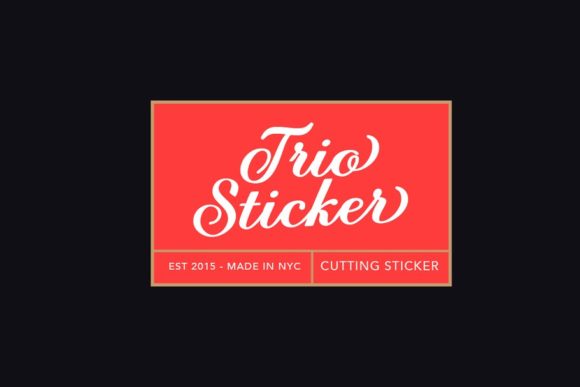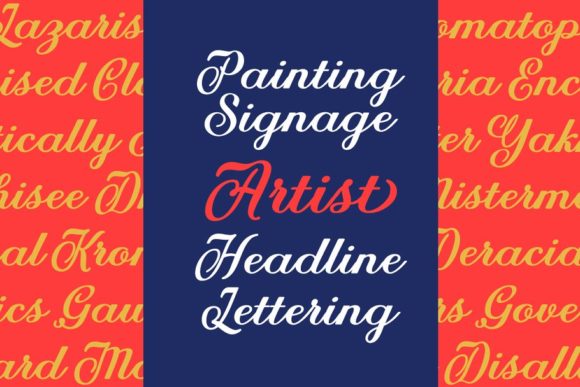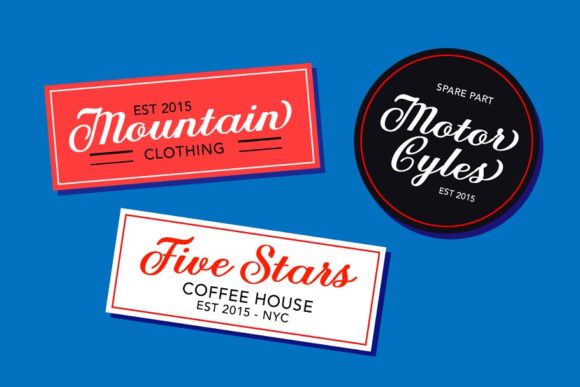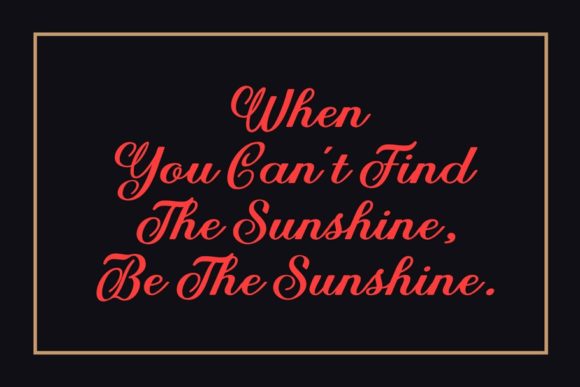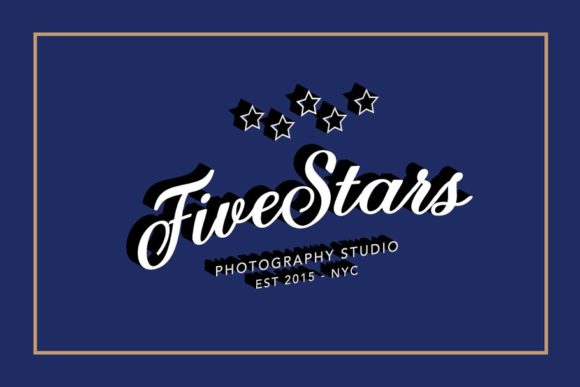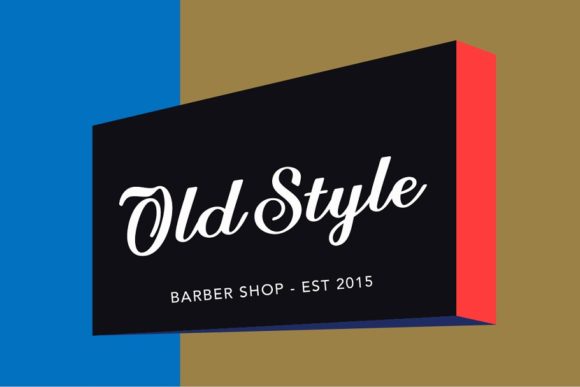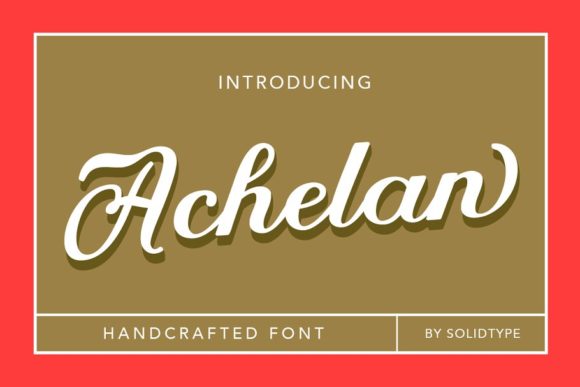
Achelan Font: Elevate Your Designs with Elegance and Charm
In the world of typography, fonts play a crucial role in conveying the tone and personality of a design. For designers and crafters looking to add a touch of vintage sophistication to their projects, the Achelan Font is an excellent choice. This highly legible font combines elegance and charm, making it perfect for a wide range of design ideas.
The Achelan Script: A Perfect Blend of Style and Readability
The Achelan Script is a beautifully crafted font that boasts a unique blend of style and readability. Its elegant curves and flowing lines evoke a sense of nostalgia, reminiscent of classic scripts from the past. Yet, its clarity and legibility ensure that it remains highly functional, making it suitable for various design applications.
Key Features of Achelan Font
- Highly Legible: The Achelan Font is designed to be easy to read, making it perfect for body text, headings, and titles.
- Elegant and Charming: Its unique script style adds a touch of sophistication and charm to any design.
- Vintage Look: The font’s classic feel makes it ideal for creating designs that require a nostalgic or retro aesthetic.
- Versatile: Achelan Script can be used for a wide range of design projects, from branding and advertising to packaging and scrapbooking.
Uses of Achelan Font
The Achelan Font is incredibly versatile, making it suitable for various design projects. Here are some ideas to get you started:
- Branding and Identity: Use Achelan Script to create elegant logos, business cards, and letterheads that exude sophistication.
- Advertising and Marketing: Add a touch of vintage charm to your ads, brochures, and flyers with this beautiful font.
- Packaging: Elevate your product packaging with Achelan Script, perfect for labels, tags, and packaging materials.
- Scrapbooking and Crafting: Use Achelan Font to add a personal touch to your scrapbook pages, journals, and other craft projects.
Tips for Using Achelan Font Effectively
To get the most out of Achelan Script, here are some tips to keep in mind:
- Pair with Contrasting Fonts: Combine Achelan Script with sans-serif fonts for a striking contrast.
- Use for Headings and Titles: Take advantage of the font’s elegance by using it for headings, titles, and key phrases.
- Experiment with Colors: Try Achelan Script with different colors, textures, and backgrounds to add depth and interest to your designs.
In conclusion, the Achelan Font is a beautiful and highly legible script font that combines elegance and charm. Its versatility, readability, and vintage aesthetic make it an excellent choice for designers and crafters looking to add a touch of sophistication to their projects. Whether you’re working on branding, advertising, packaging, or scrapbooking, Achelan Script is sure to elevate your designs to the next level.